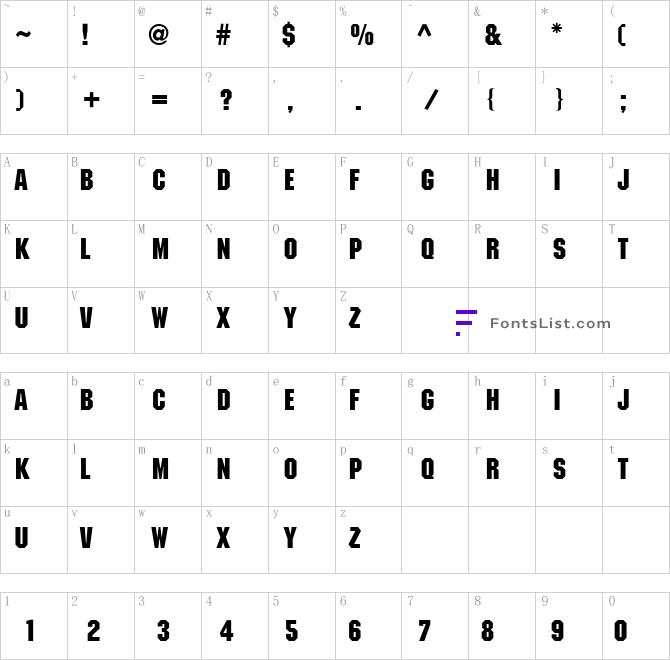
- Font Name:Automaton Caps Light SSi
Automaton-Caps-Light-SSi-Light.ttf is a very beautiful artistic font, Automaton-Caps-Light-SSi-Light.ttf is widely used in the design and printing of various books and pictures,Automaton-Caps-Light-SSi-Light.ttf has a strong visual impact,Automaton-Caps-Light-SSi-Light.ttf is a commonly used font in newspapers, magazines and books, and is used in posters, e-commerce Poster design, store design, logo design, font design and other fields.Automaton-Caps-Light-SSi-Light.